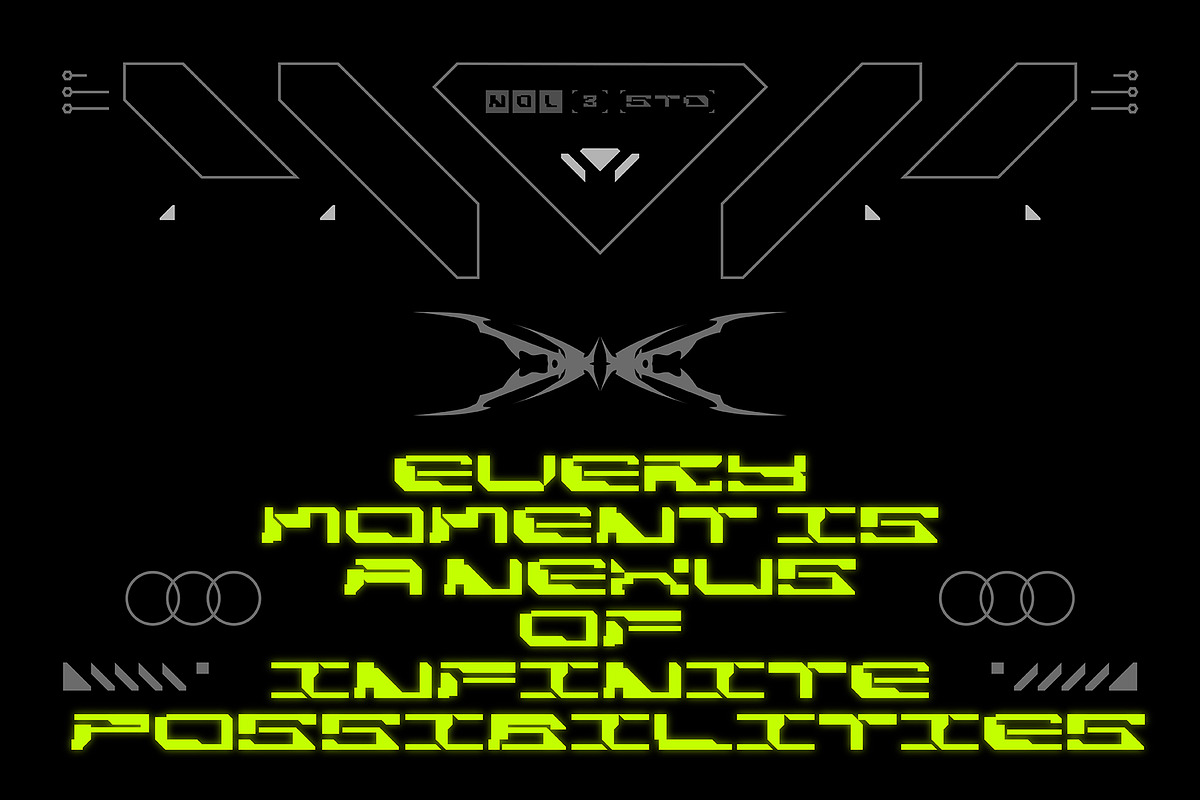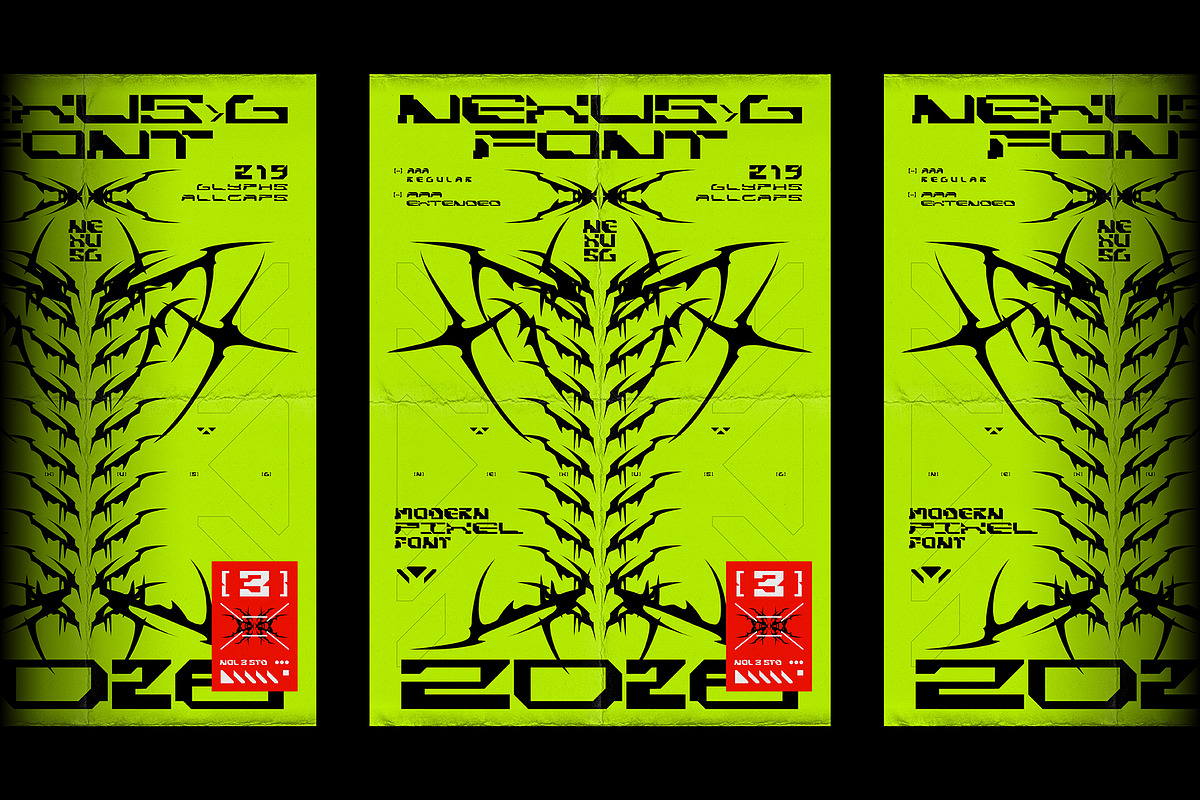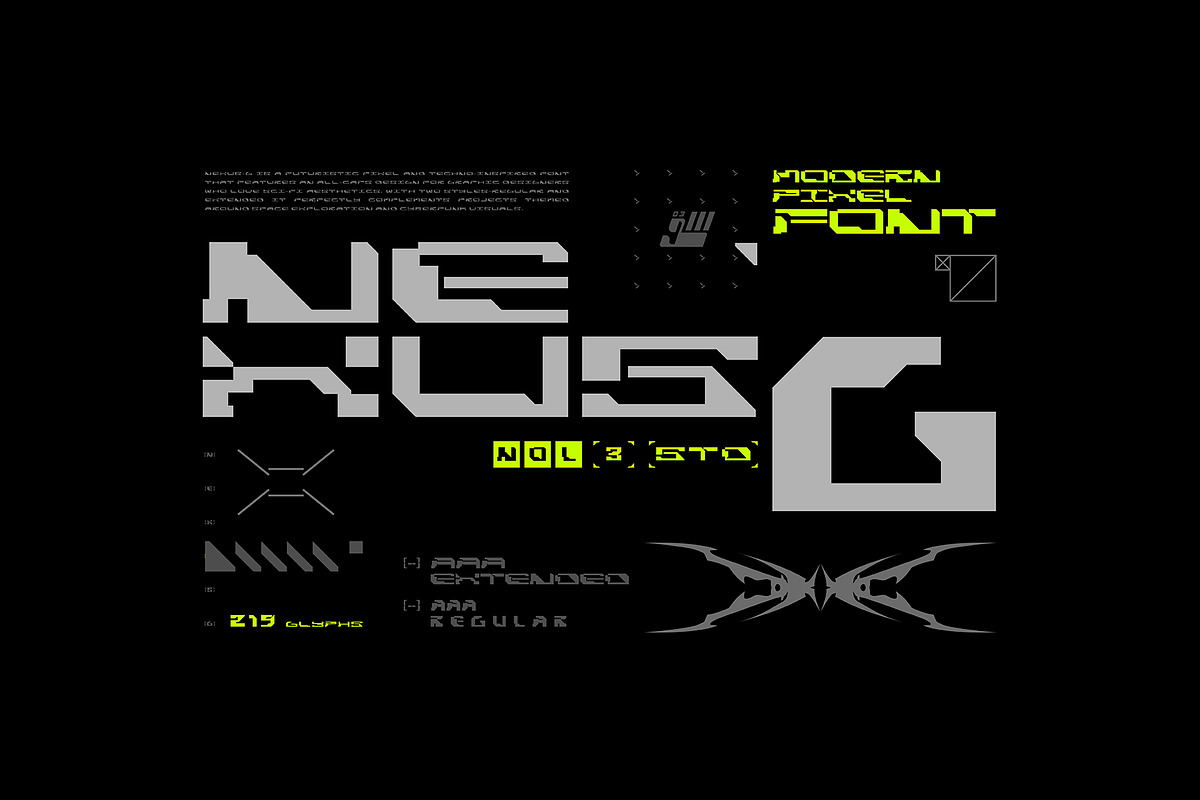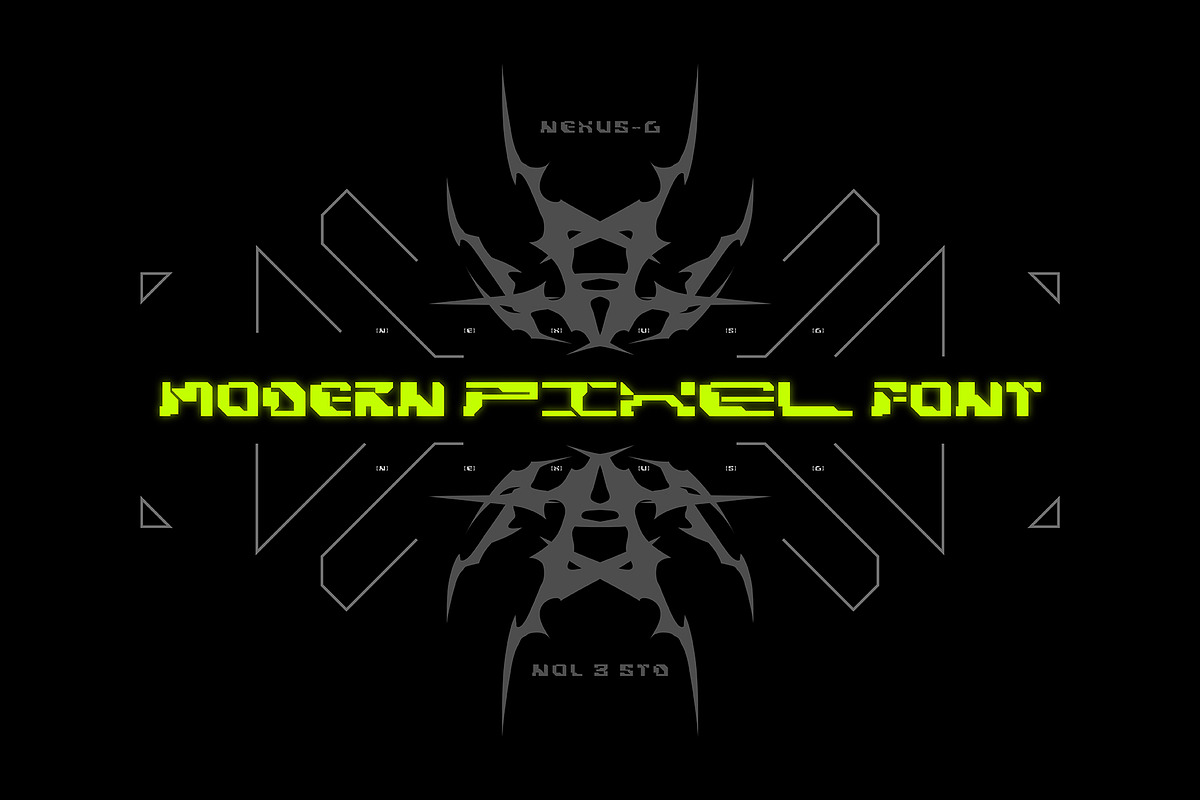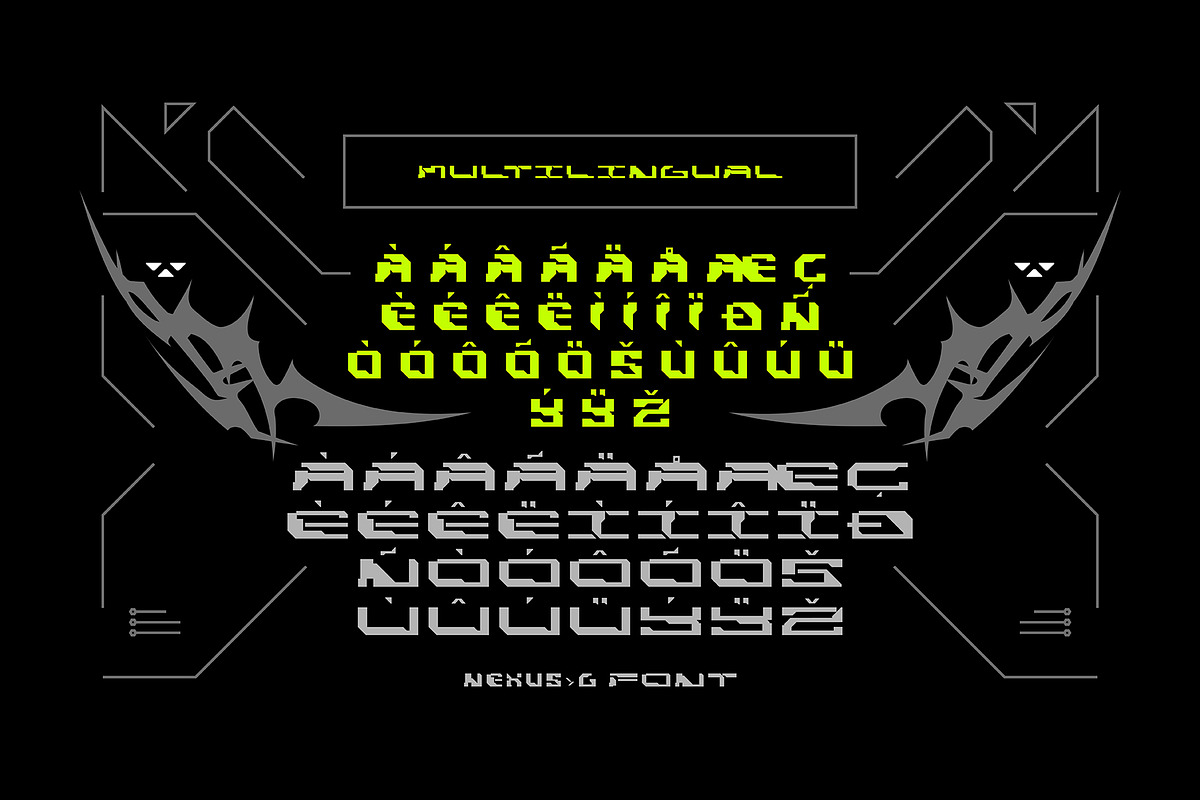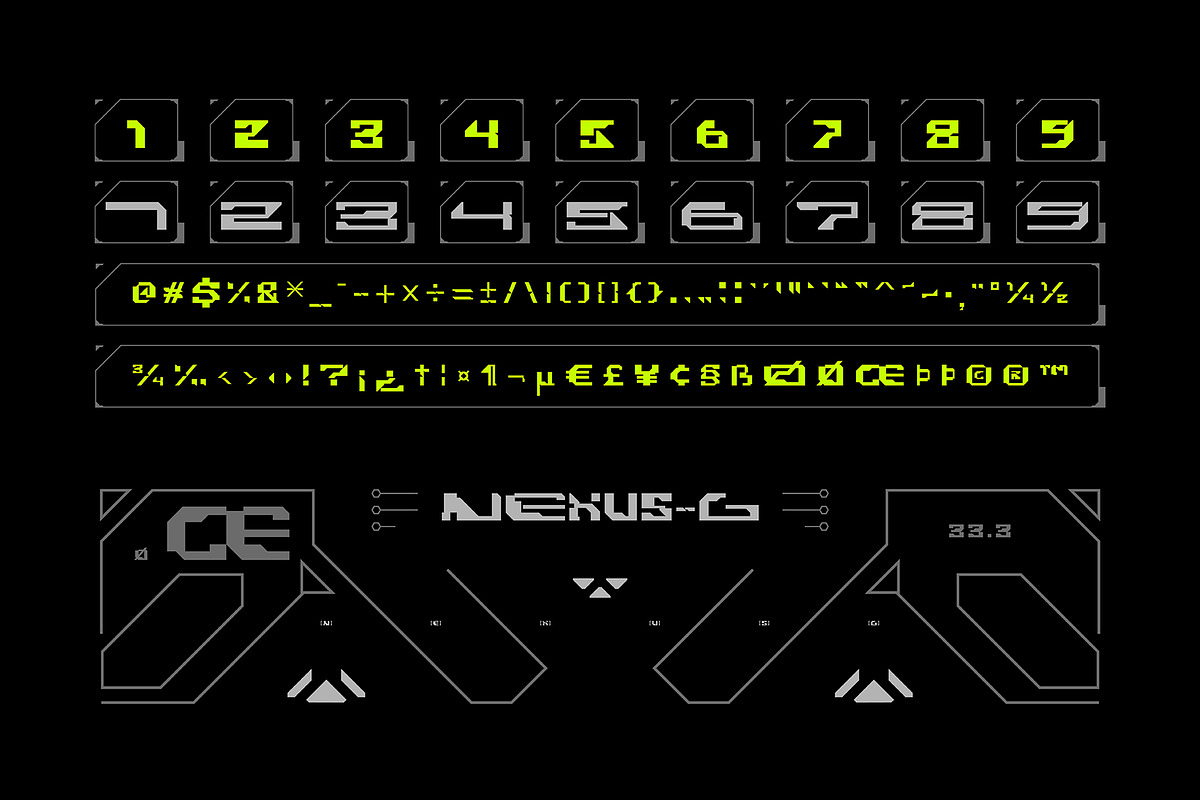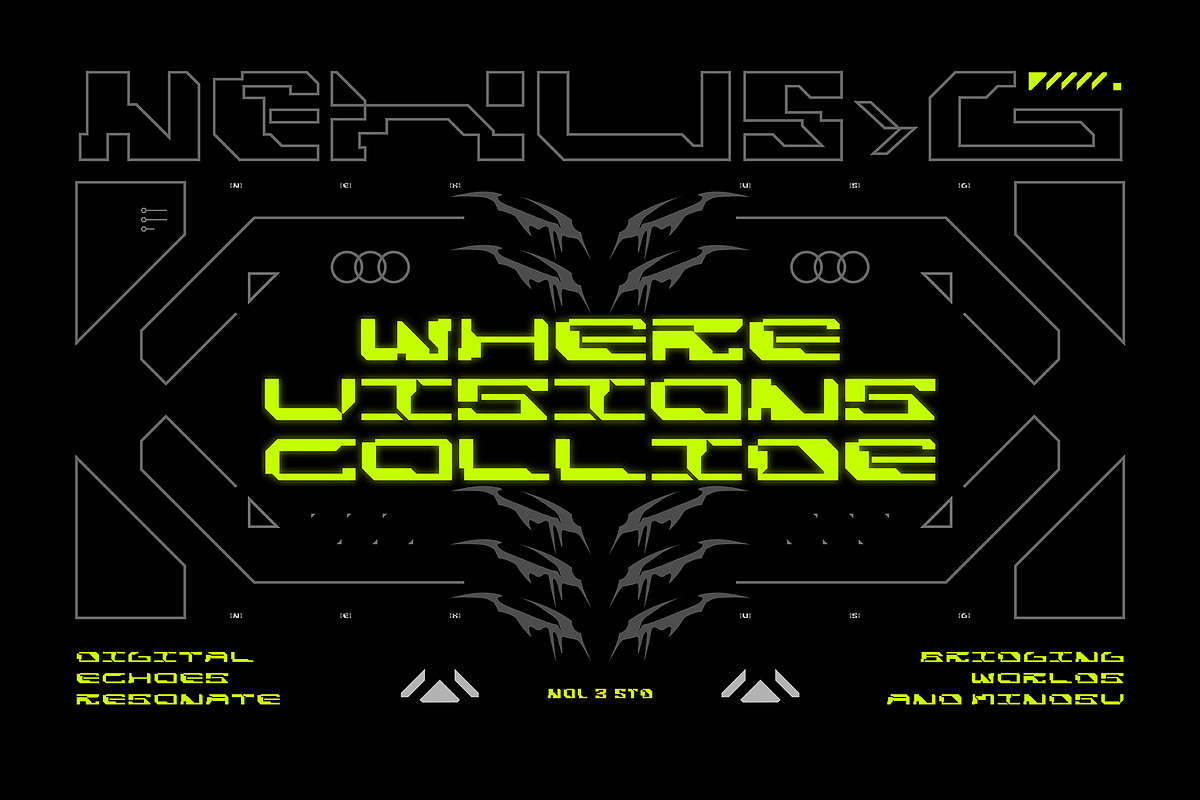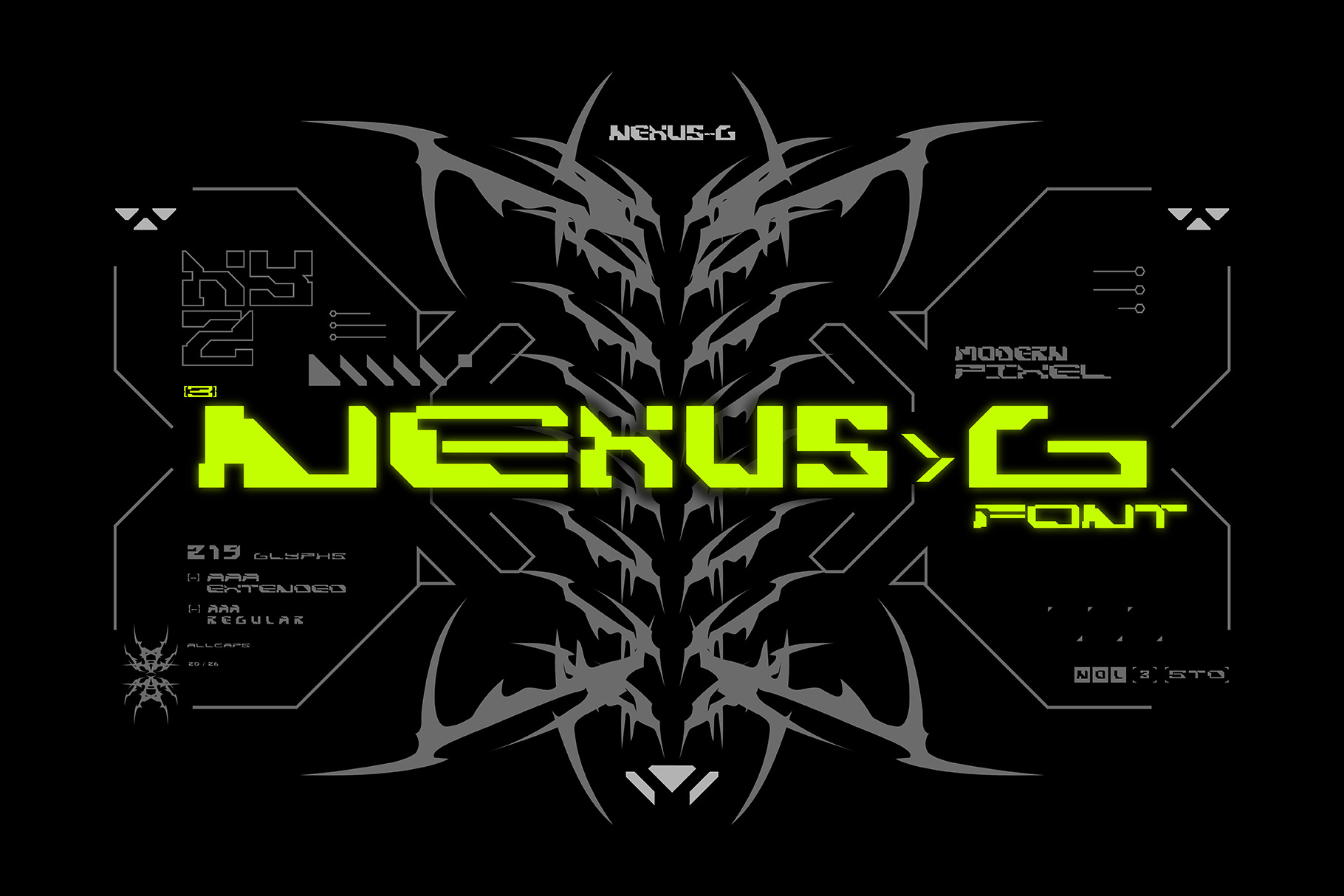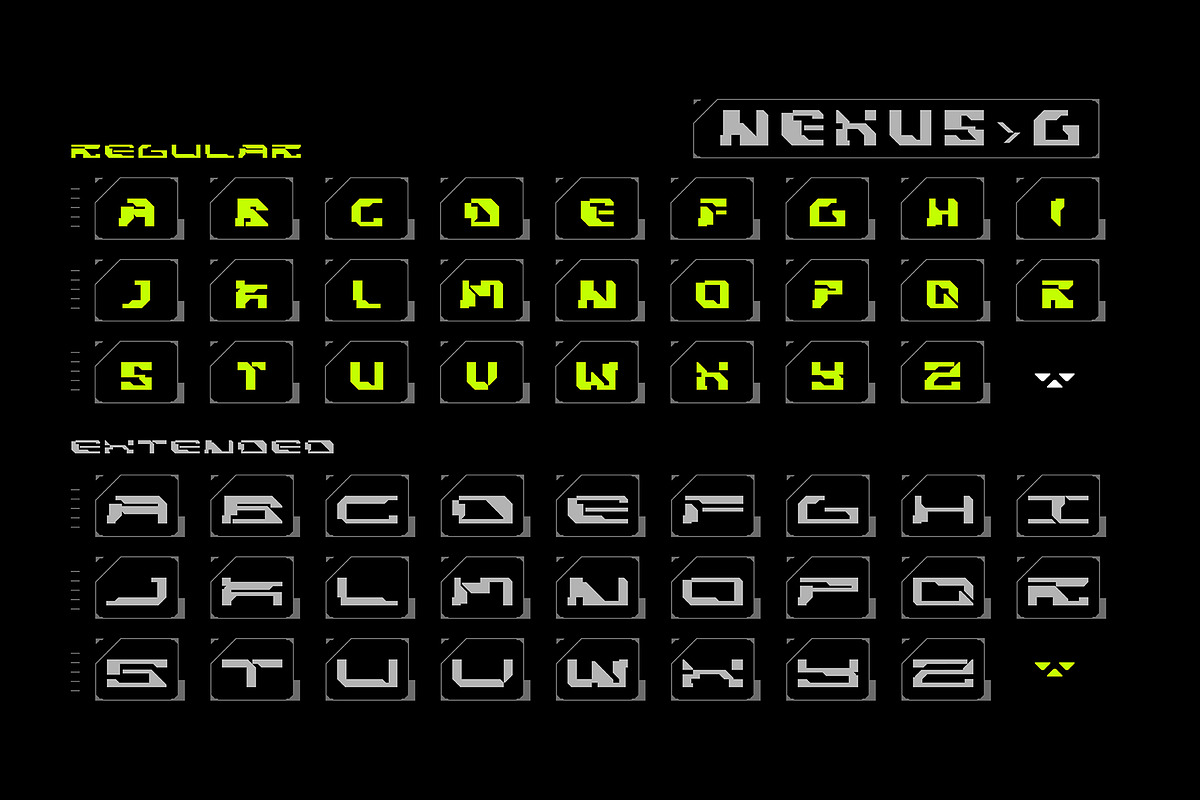
NEXUS-G | Modern Pixel Font
Nexus-G is a modern pixel and techno-inspired font that features an all-caps design for graphic designers who love sci-fi aesthetics. With two styles Regular and Extended it perfectly complements projects themed around space exploration and cyberpunk visuals.
The Font Contains 200+ Glyphs
ALLCAPS Character
2 Font Styles (Regular & Extended)